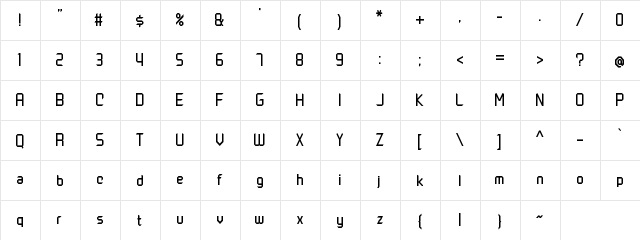
TitH Regular
| Designer | chge |
Design Context for TitH Typeface
TitH offers clean, dependable letterforms without strong stylistic allegiance, making it a practical choice for designers who need flexibility.